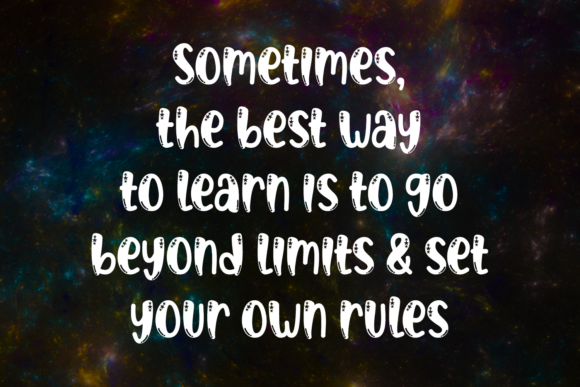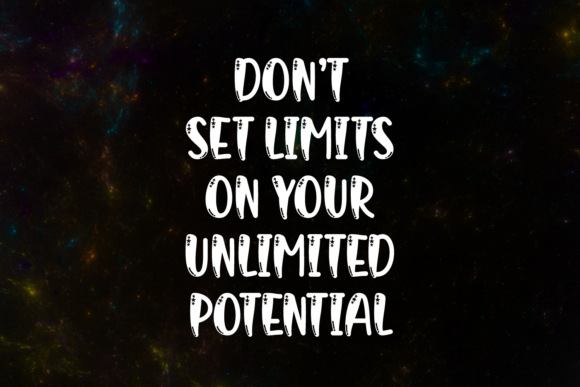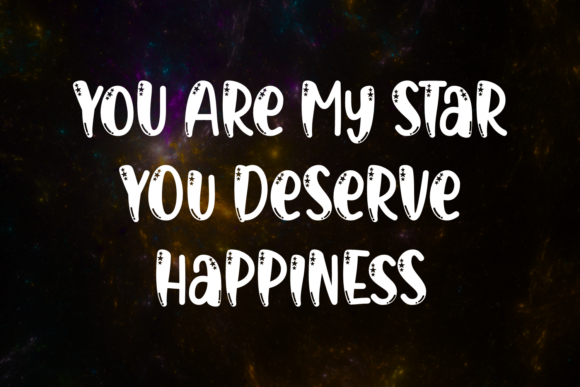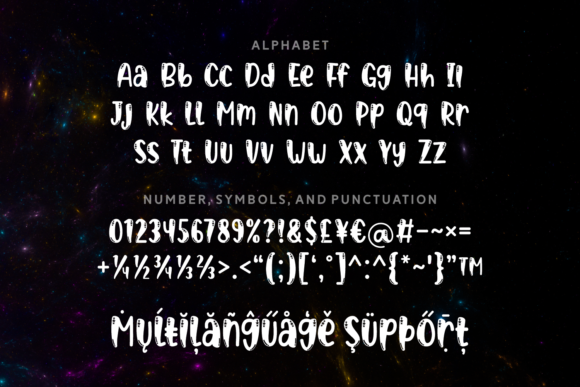
Above the Stars Font: A Celestial Dream for Designers
Have you ever been in the middle of a design project, and suddenly, you feel like something is missing? You’re not quite sure what it is, but you know it’s that one special something that will take your design from good to amazing. For me, that moment was when I discovered the Above the Stars font. It’s a gorgeous display font that has become my go-to for a wide range of projects, from magazine titles to kids’ clothes.
A Personal Design Moment
I was working on a project for a children’s book, and I needed a font that would capture the whimsical and adventurous spirit of the story. I spent hours browsing through font libraries, but nothing seemed quite right. That was until I stumbled upon Above the Stars. The moment I saw it, I knew I had found the one. The tall, chubby characters with a touch of stars inside the font’s character set were exactly what I needed to bring the story to life.
So, what do I love about Above the Stars? Here are a few things that make this font stand out:
- ✨ Unique character design with stars inside the font’s character set
- ✅ Tall and chubby characters that are perfect for display text
- 💫 Versatile and can be used for a wide range of projects, from magazines to kids’ clothes
- 🎉 Fun and playful vibe that’s perfect for creative projects
- 🤔 Some characters may not work well at smaller font sizes
- ⚠️ Limited availability of certain OpenType features
The story behind Above the Stars is one of creativity and inspiration. The designer behind this font was inspired by the magic of the night sky and the sense of wonder that comes with gazing up at the stars. With Above the Stars, you can bring a little bit of that magic to your designs.
| What is Above the Stars font? | Above the Stars is a display font with a unique character design featuring stars inside the font’s character set. |
| What can I use Above the Stars for? | You can use Above the Stars for a wide range of projects, from magazines and book titles to posters, branding, kids’ clothes, and more. |
| Is Above the Stars easy to use? | Yes, Above the Stars is easy to use and comes with a range of features, including OpenType features and glyphs. |